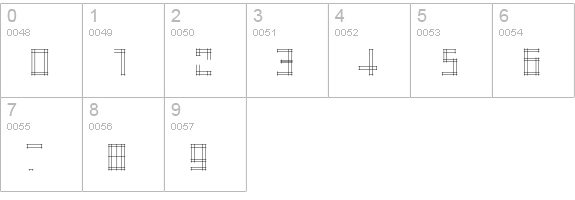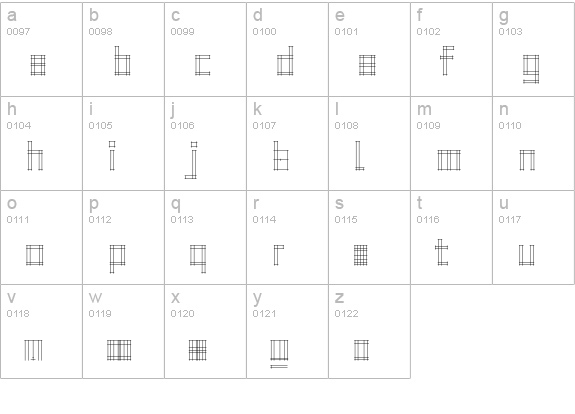
GridNormal Font Details
Introducing GridNormal font, a sleek and modern typeface perfect for a variety of design projects. This versatile font features a clean and professional look that is sure to make your work stand out. With its unique grid-inspired design, GridNormal is ideal for creating eye-catching headlines, logos, posters, and more. The best part? GridNormal is completely free to download at FontsMarket.com! Simply visit the website to access this stylish font and take your designs to the next level. Don't miss out on the opportunity to add GridNormal to your font collection today.